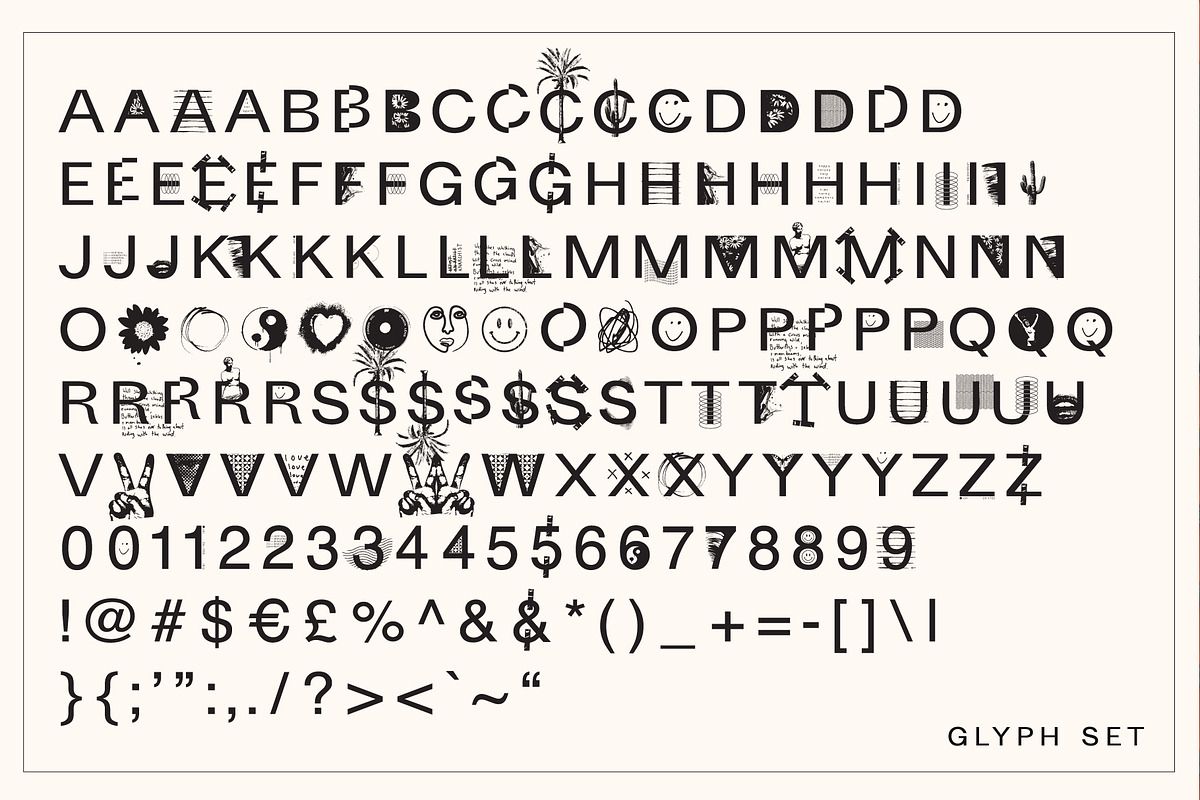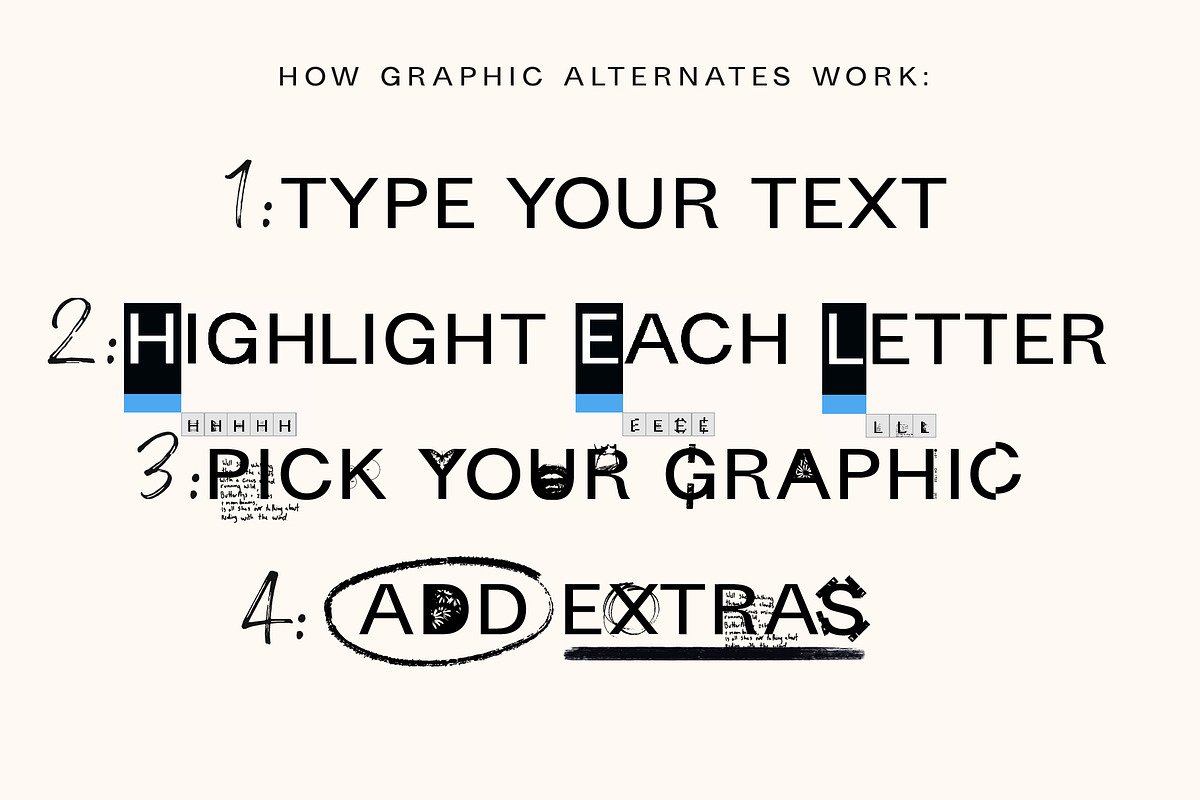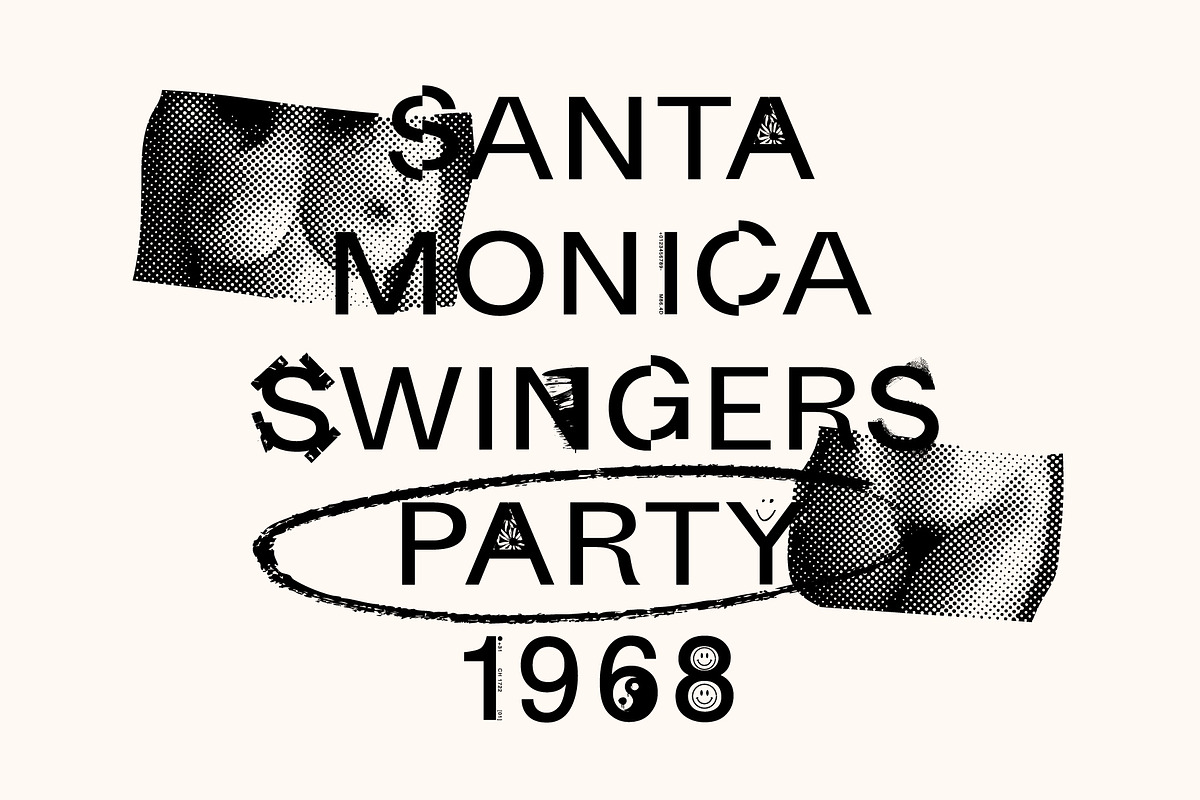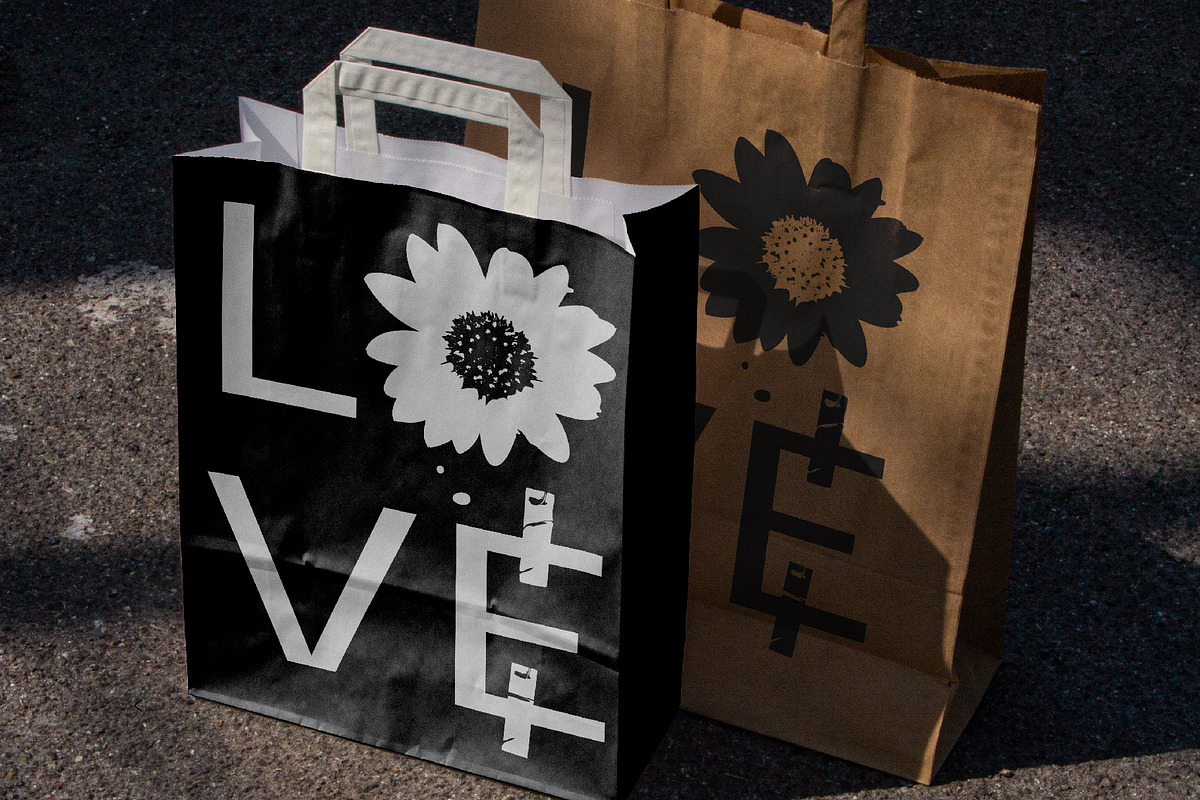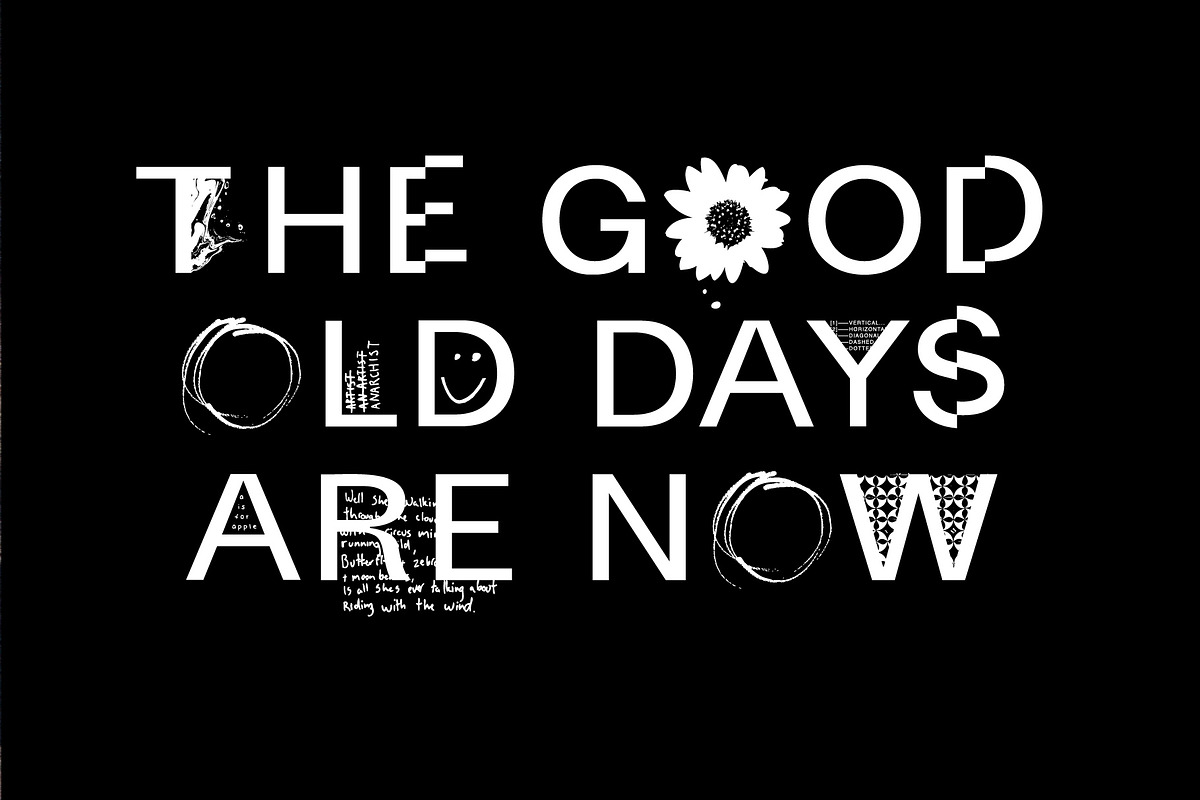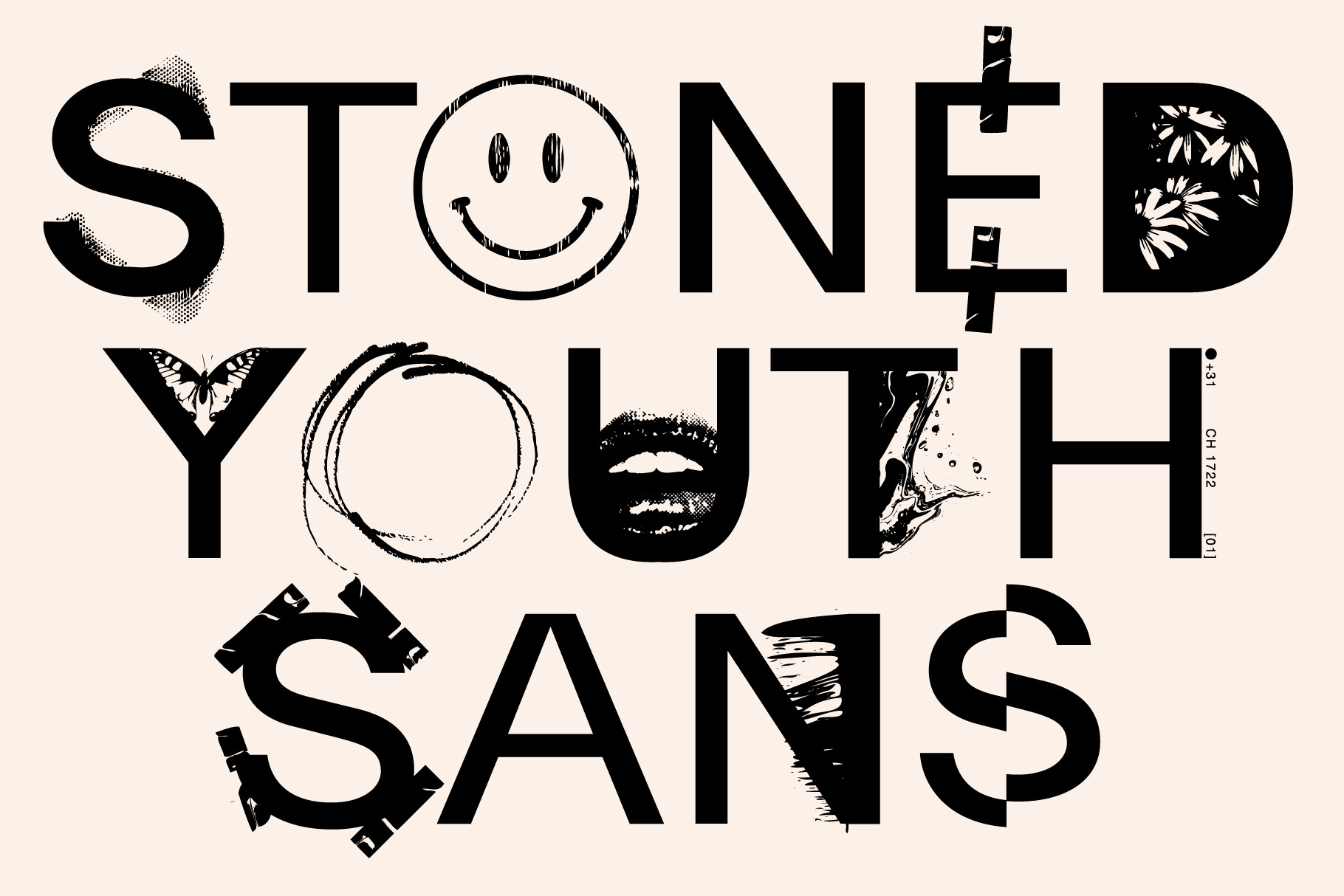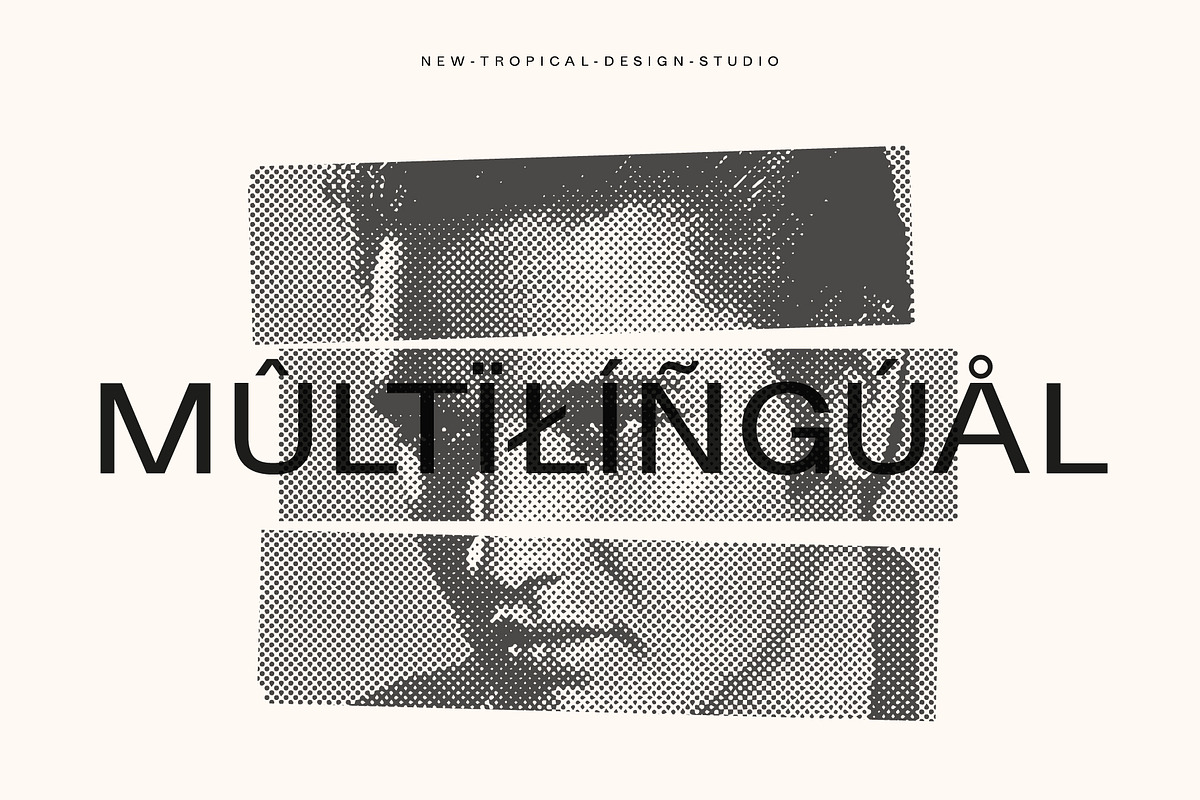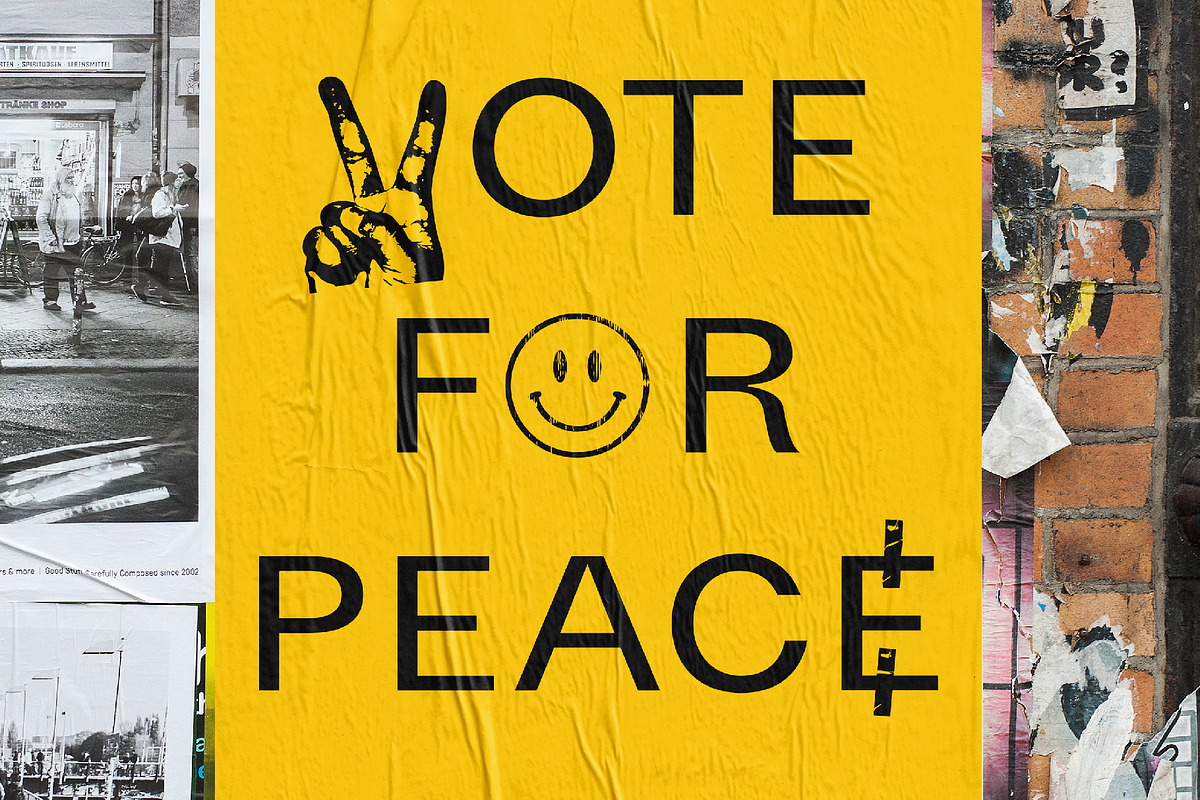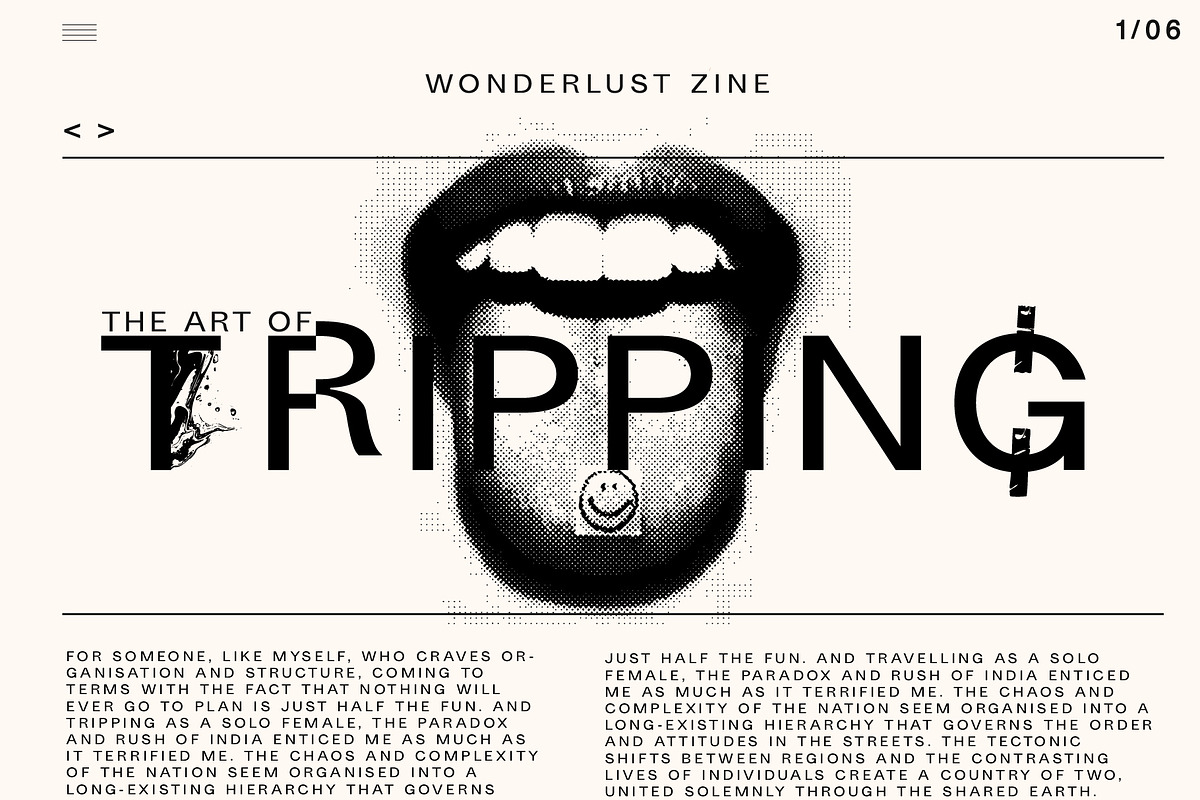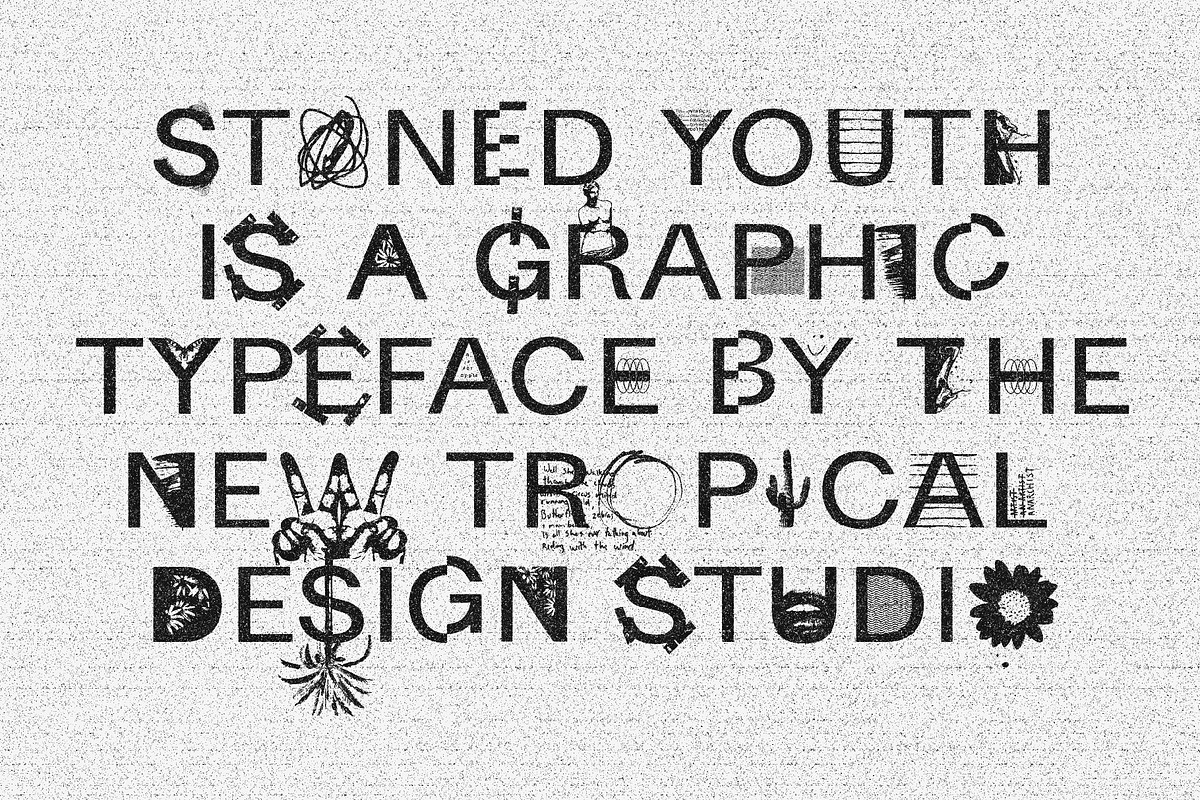
STONED YOUTH - GRAPHIC FONT
Stoned Youth Graphic Font is a one of kind typeface with built in graphics. Just type your text and add intertwined graphic letters with a single click. It's never been easier to get unique and stylish typography with bonus graphics included.
Full upper, numbers, punctuation and graphic letters
Multilingual support ( including polish )